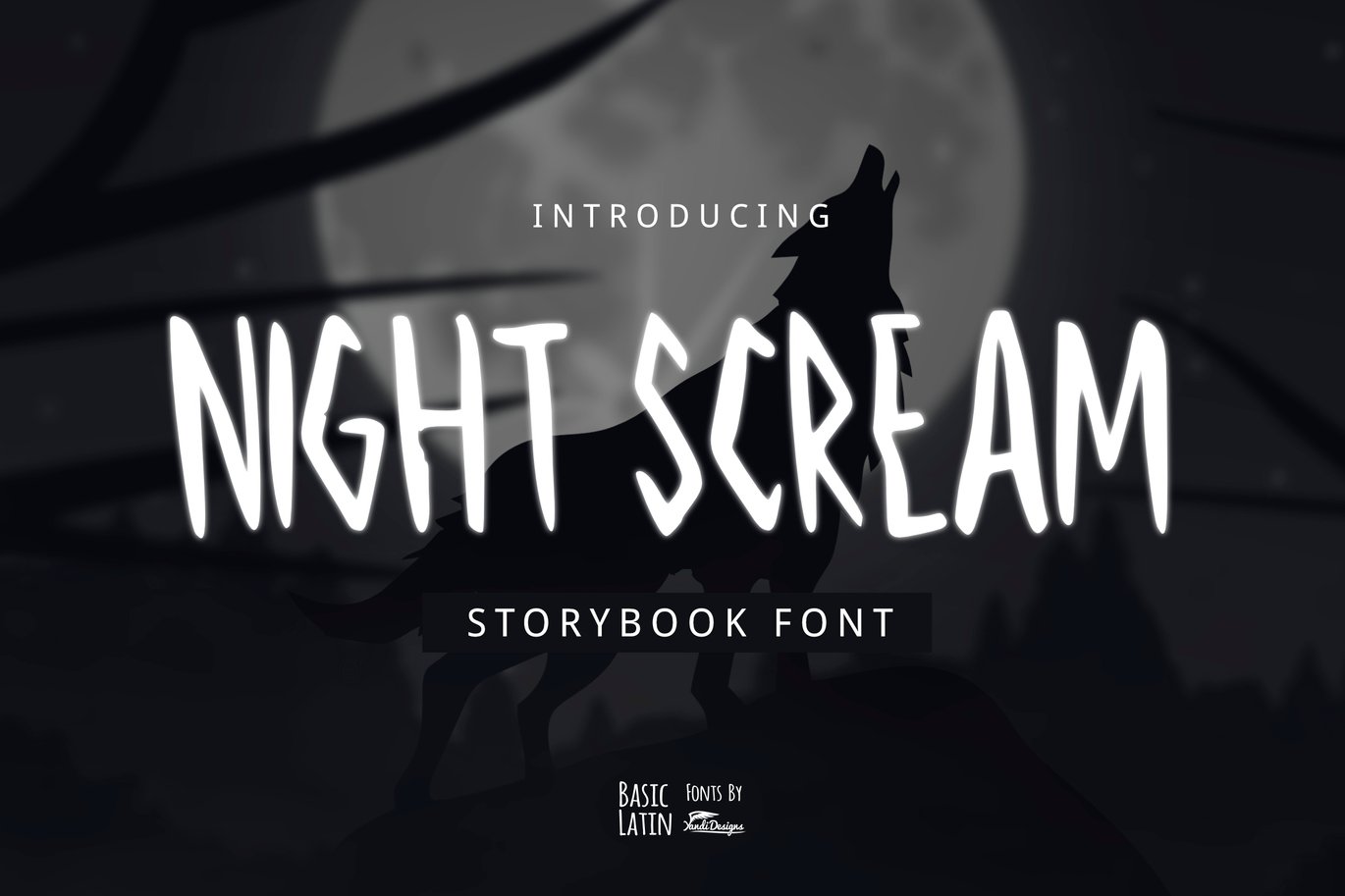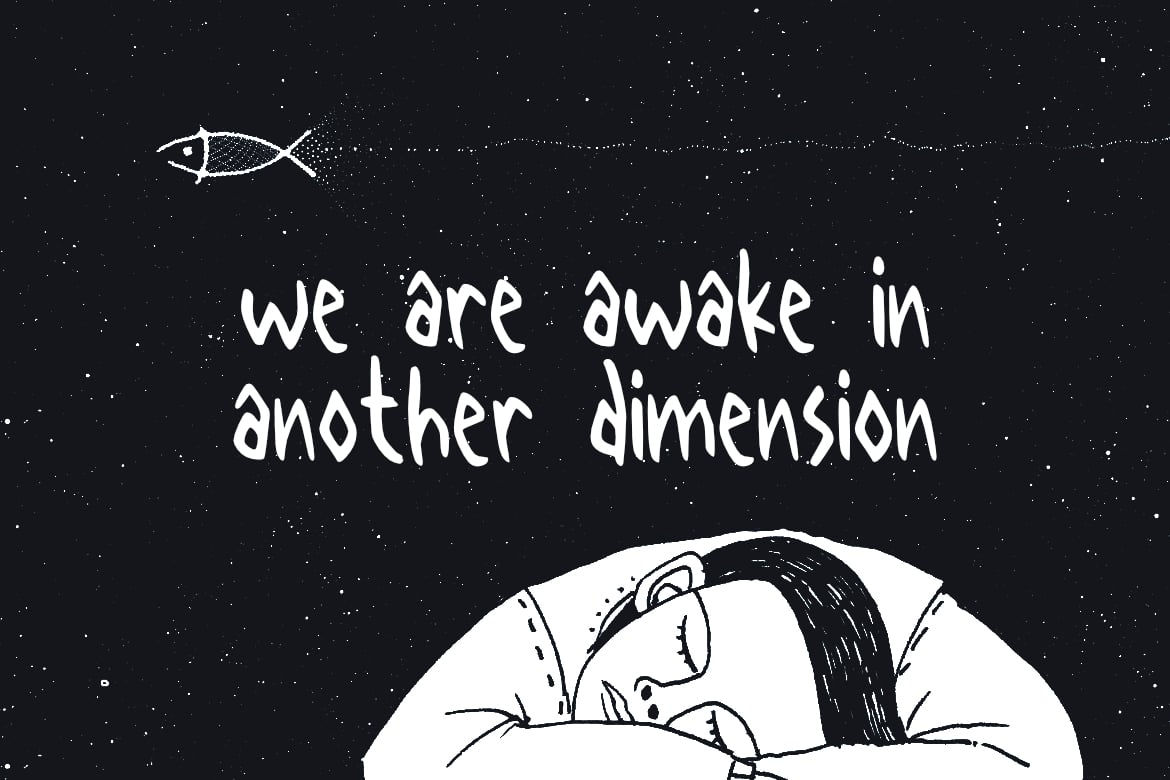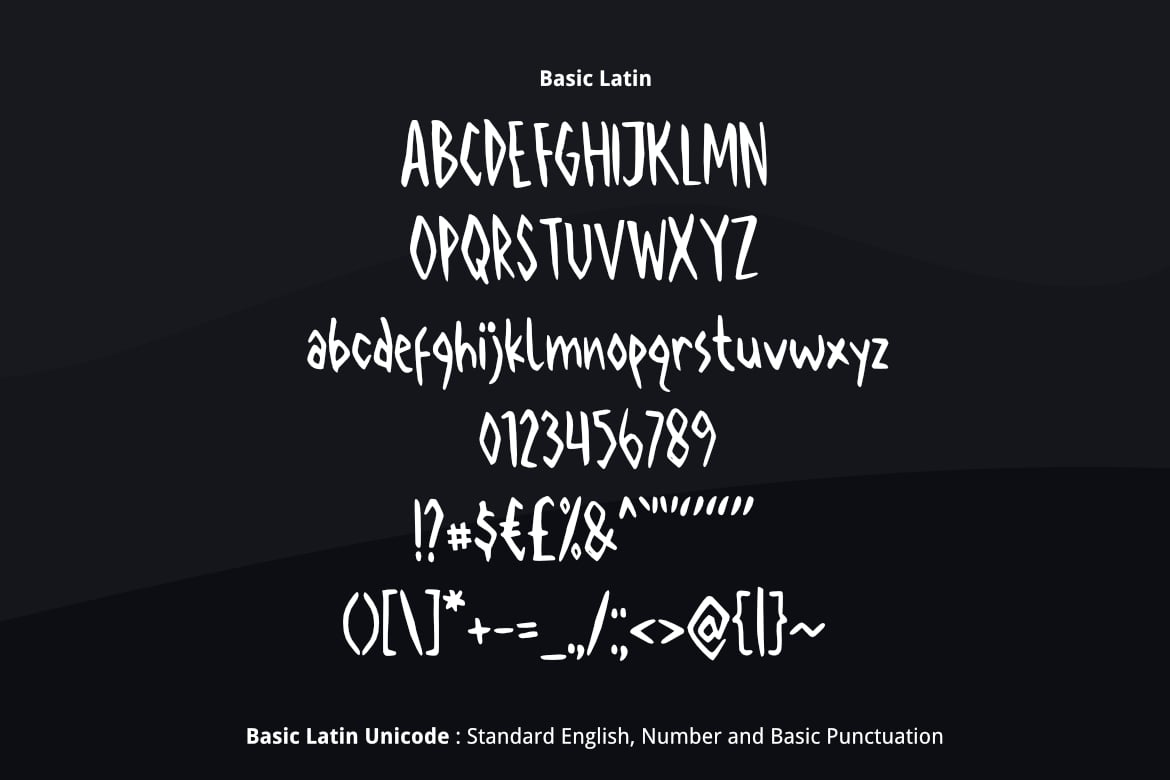
Night Scream Font
Night Scream font is simple multipurpose handmade font , suitable for many project children book, quotes, logo , heading , title etc.
Basic Latin (Standard English character , number, symbol)